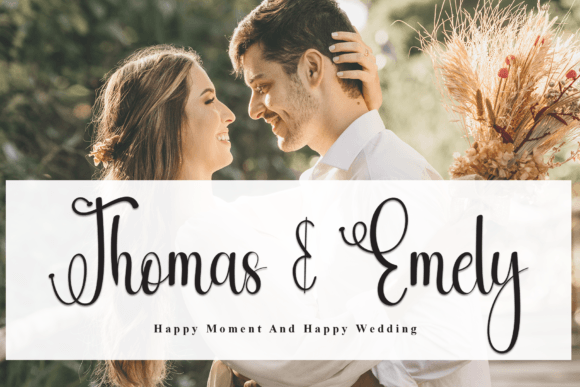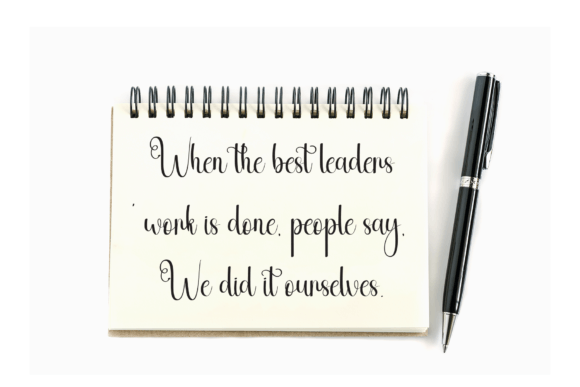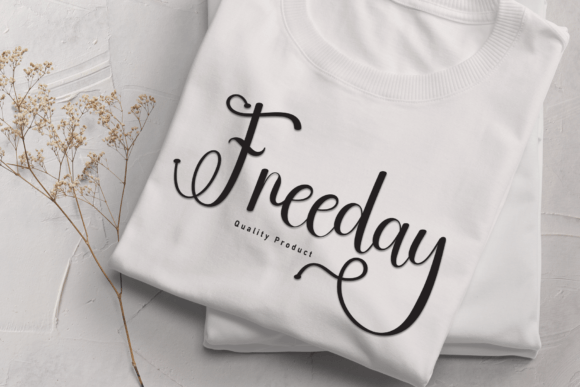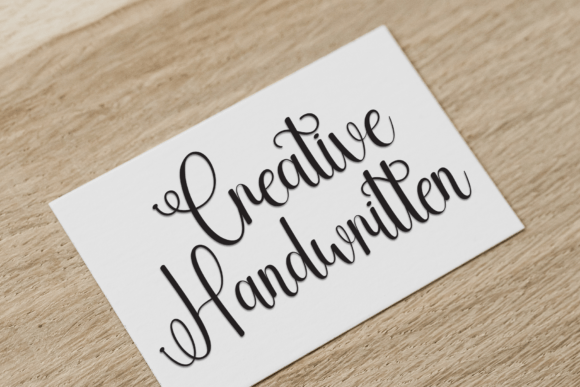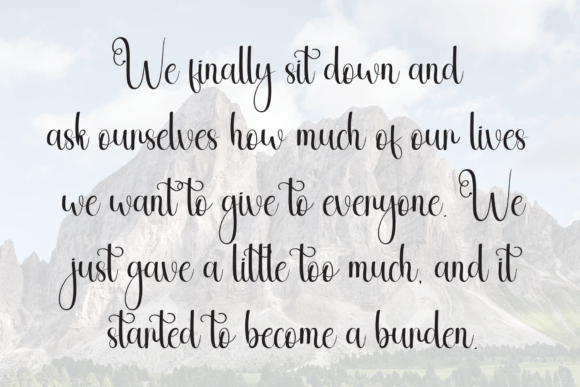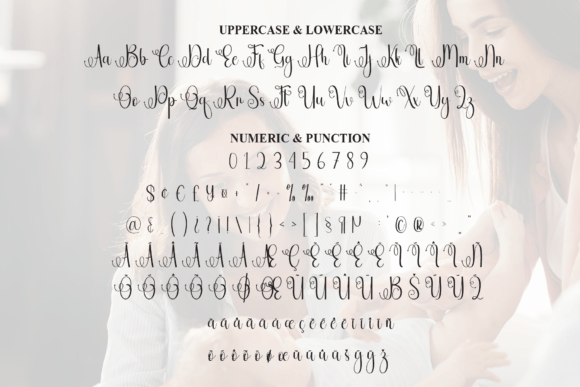
Introducing Aunty Font: The Sweetest Handwritten Display Font for Your Designs
Are you tired of using the same old fonts in your designs? Do you want to add a touch of warmth and friendliness to your creative projects? Look no further than Aunty Font, a charmingly warm handwritten display font that perfectly encapsulates sweetness and friendliness. In this article, we’ll introduce you to the delightful world of Aunty Font and explore how it can transform your designs with its quirkiness and elegance.
The Charm of Aunty Font
Aunty Font is a finely crafted font that is designed to bring joy and elegance to your designs. Its delightful quirkiness makes it perfect for crafting customized wedding invitations, personal cards, and other creative projects that require a touch of fun and whimsy. With Aunty Font, you can add a splash of personality to your designs and make them stand out from the crowd.
Whether you’re a professional designer or a crafty DIY enthusiast, Aunty Font is the perfect addition to your font collection. Its versatility and charm make it suitable for a wide range of design projects, from wedding stationery and party invitations to social media graphics and blog posts. With Aunty Font, you can add a touch of warmth and personality to your designs and connect with your audience on a more personal level.
Key Features of Aunty Font
- Handwritten display font: Aunty Font is a beautifully crafted handwritten display font that exudes warmth and friendliness.
- Quirky and elegant: The font’s delightful quirkiness adds a touch of fun and whimsy to your designs, while its elegance ensures that they remain sophisticated and refined.
- Perfect for customized designs: Aunty Font is ideal for crafting customized wedding invitations, personal cards, and other creative projects that require a touch of personality.
Inspiration for Your Designs
Need inspiration for your designs? Here are a few ideas to get you started:
- Wedding invitations: Use Aunty Font to create customized wedding invitations that reflect the couple’s personality and style.
- Personal cards: Add a touch of warmth and personality to your personal cards, such as birthday cards and thank-you cards.
- Social media graphics: Use Aunty Font to create eye-catching social media graphics that showcase your brand’s personality and style.
- Blog posts: Add a touch of elegance and sophistication to your blog posts with Aunty Font.
In conclusion, Aunty Font is a charmingly warm handwritten display font that perfectly encapsulates sweetness and friendliness. Its delightful quirkiness and elegance make it perfect for a wide range of design projects, from customized wedding invitations to social media graphics. With Aunty Font, you can add a touch of personality and whimsy to your designs and connect with your audience on a more personal level. So why wait? Download Aunty Font today and start creating designs that are as sweet as they are elegant!